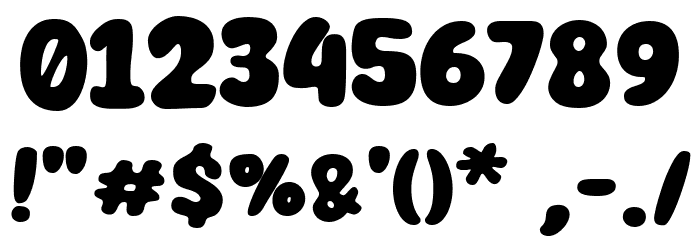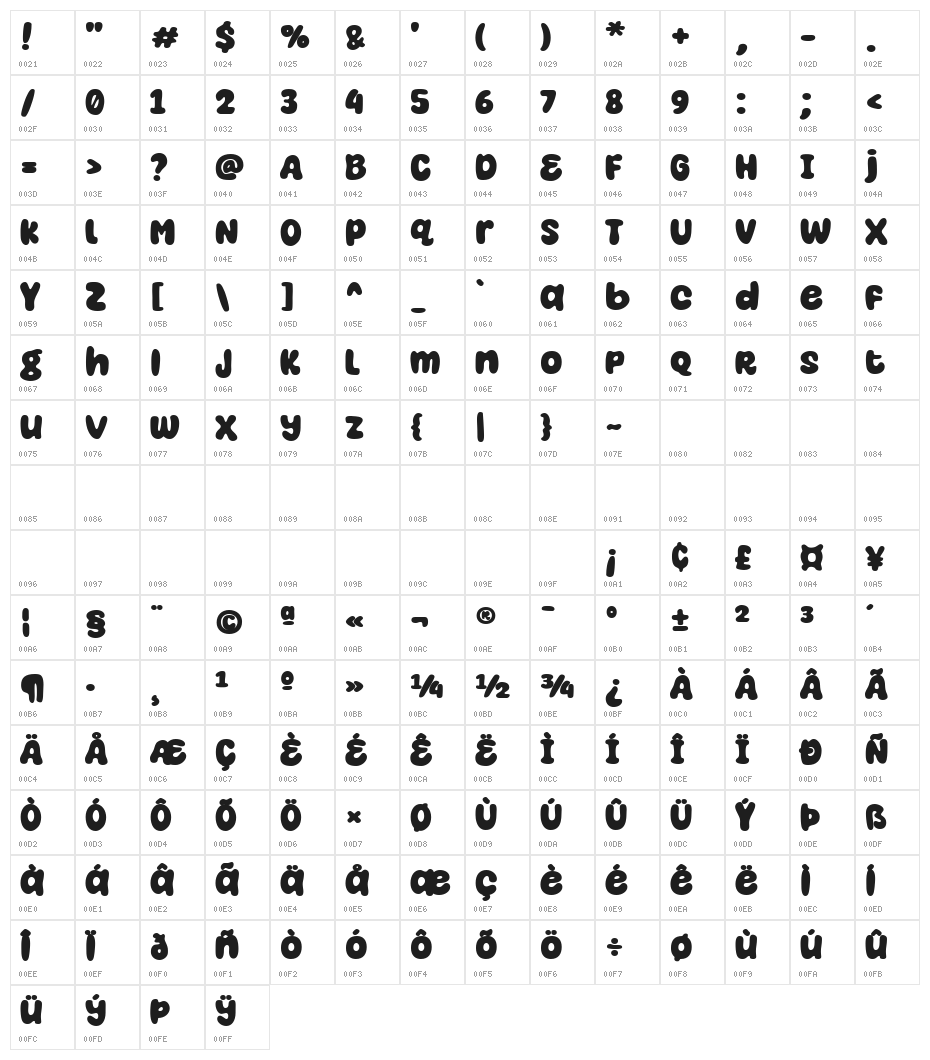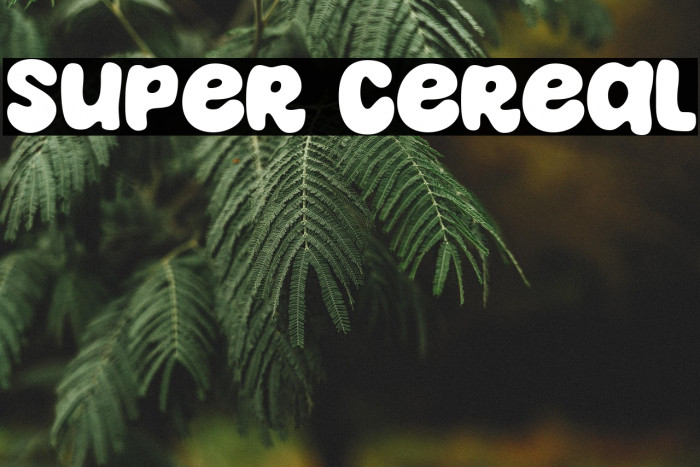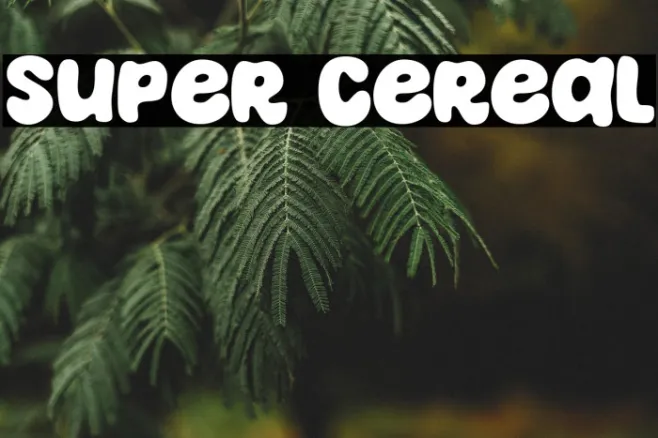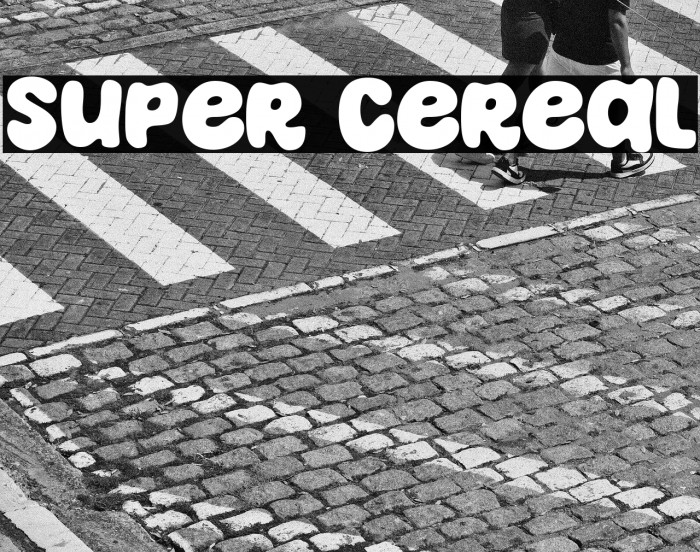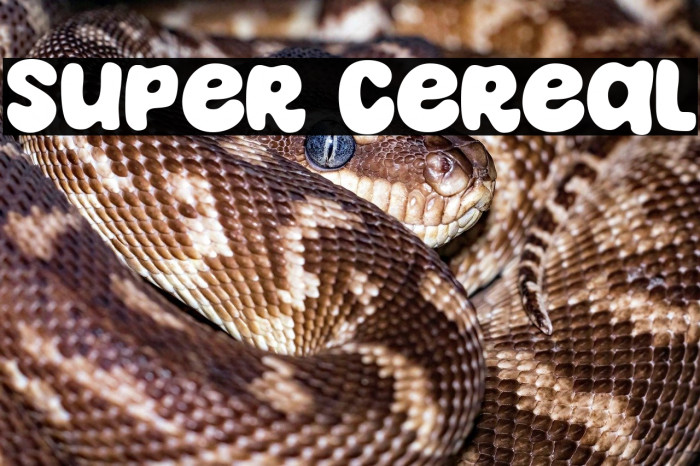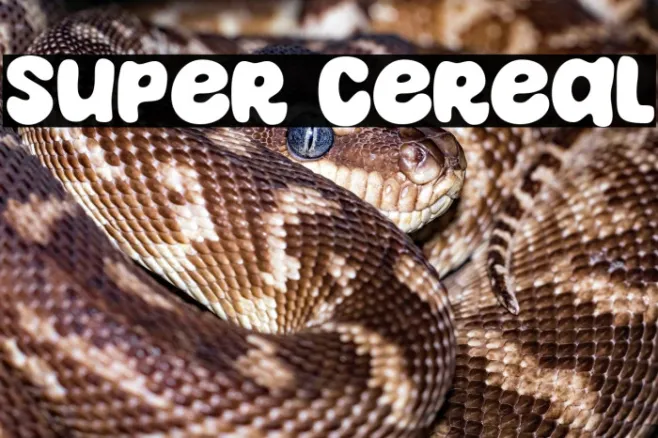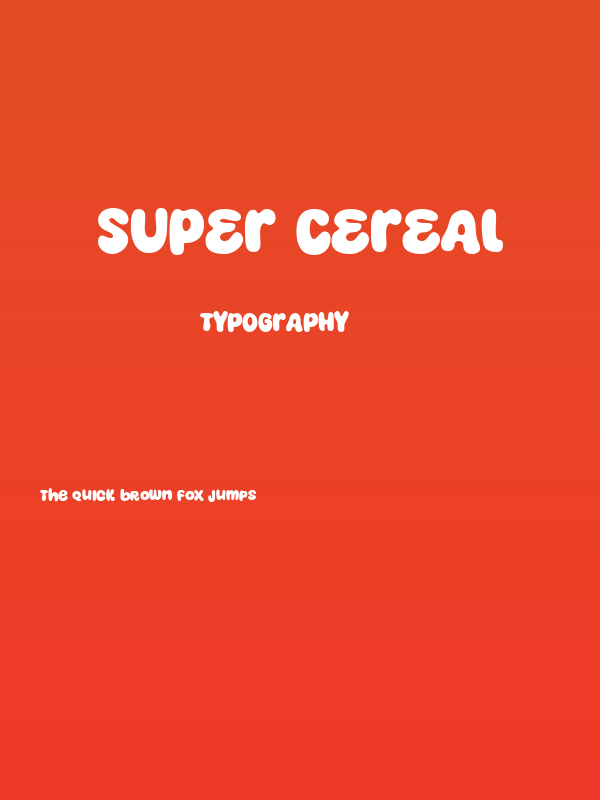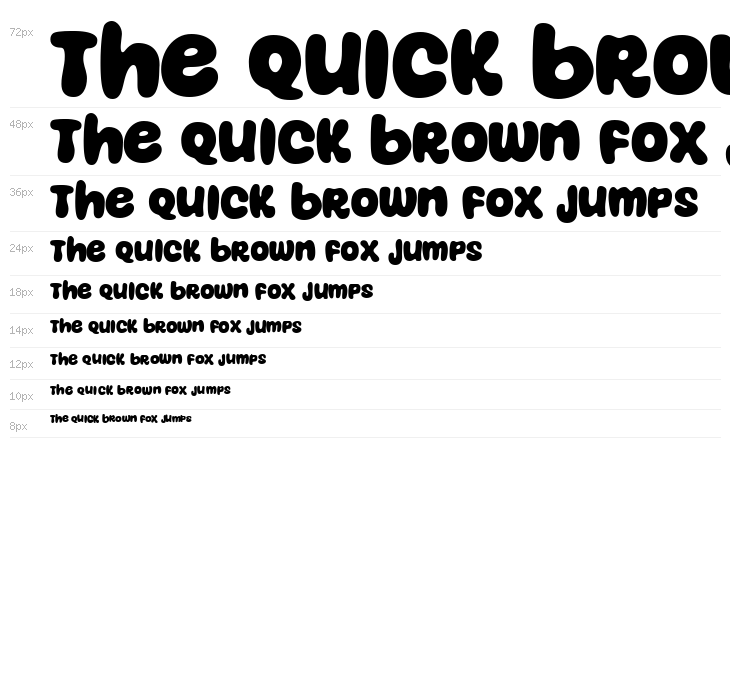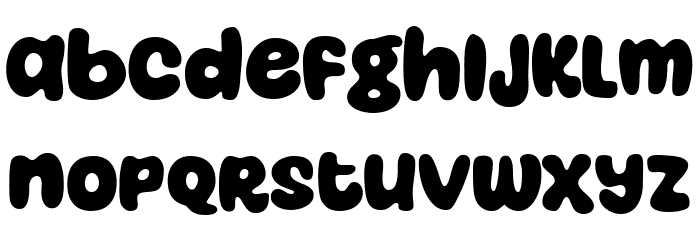
Super Cereal Font
Super Cereal Description
This playful and bold font features rounded, bubbly characters that exude a sense of fun and whimsy. The letters are thick and uniform, with a consistent stroke width that gives them a cohesive appearance. The rounded edges and lack of sharp angles contribute to a friendly and approachable feel. This font is highly legible, even at smaller sizes, making it versatile for various design applications. The numbers and special characters maintain the same playful style, ensuring a harmonious look across different text elements.
Overall StylePlayful